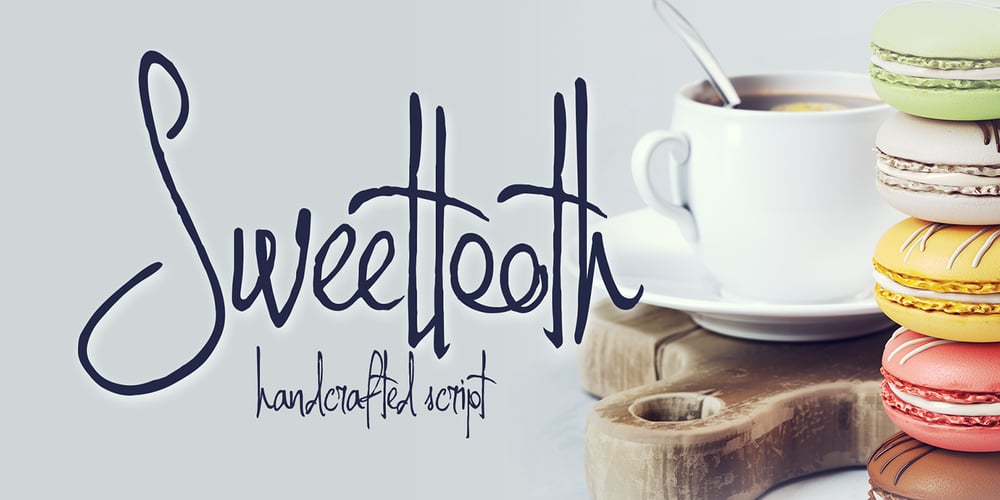
Sweettooth Font Family was designed by Gleb Guralnyk and published by Gleb Guralnyk. Sweettooth contains 1 styles and family package options. Hi! Introducing a script font named Sweettooth. It’s fully handcrafted and has a natural look. Also it has several ligatures to make it more authentic. Thank you and have a great day!